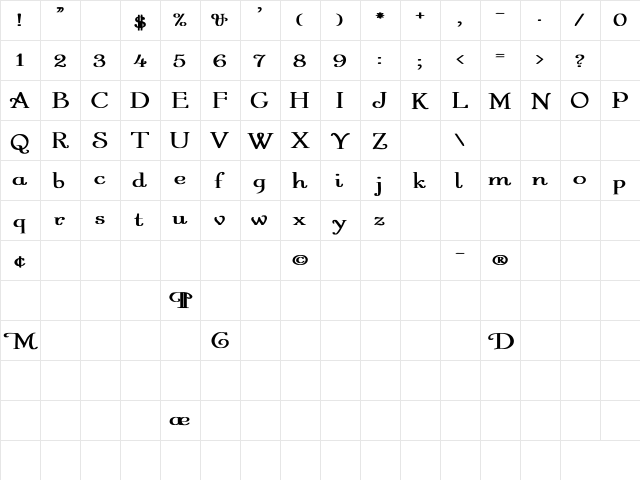
Garton Regular Wd Bold Bold
Design Context for Garton Regular Wd Bold Typeface
Garton Regular Wd Bold is a composed and adaptable typeface that performs quietly and consistently across a wide range of design contexts. The heavy weight commands attention and anchors typographic hierarchies.